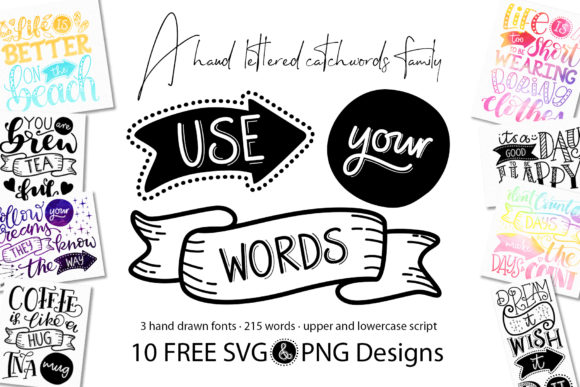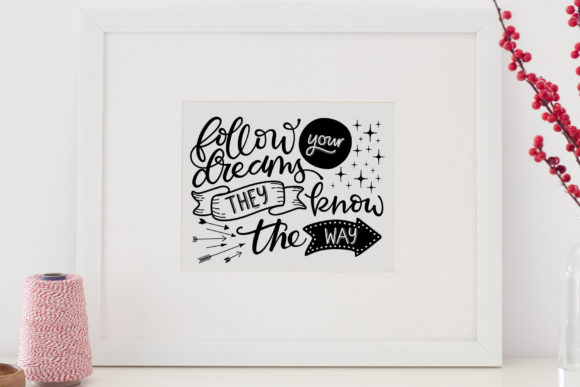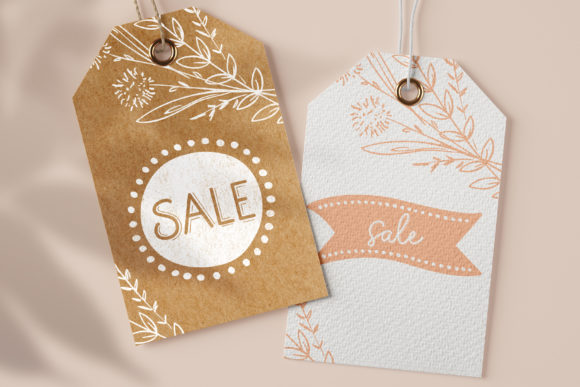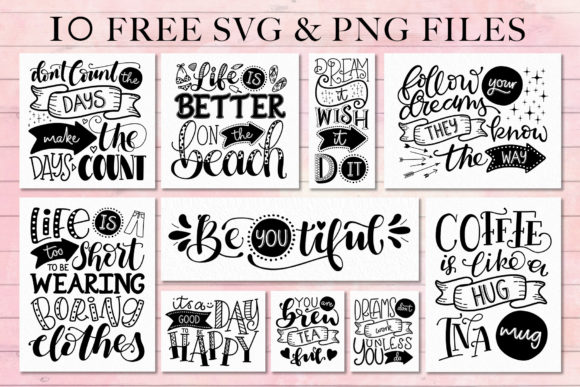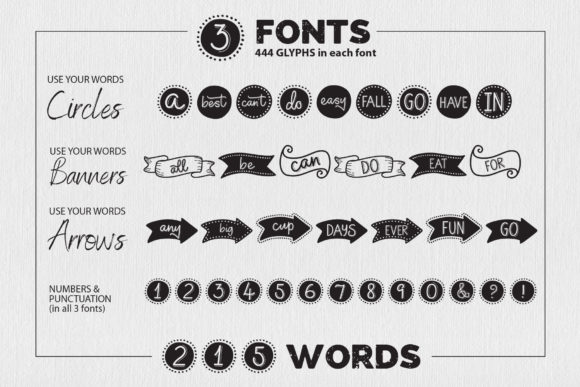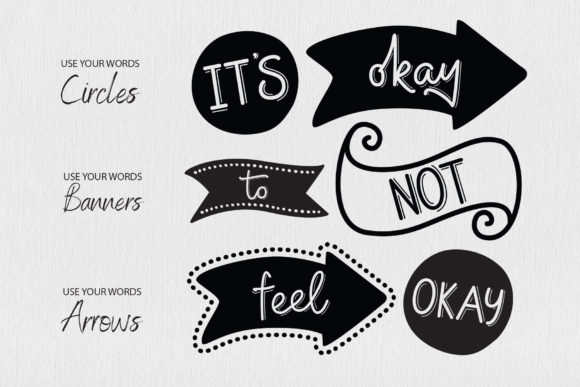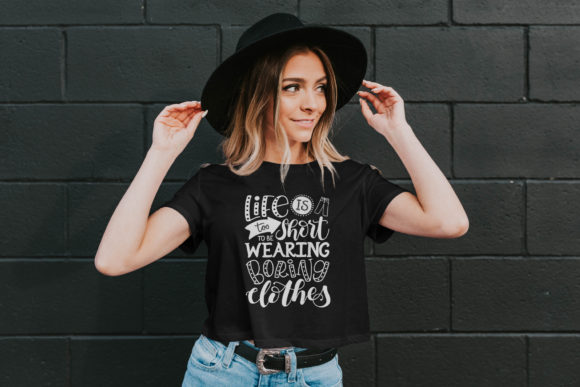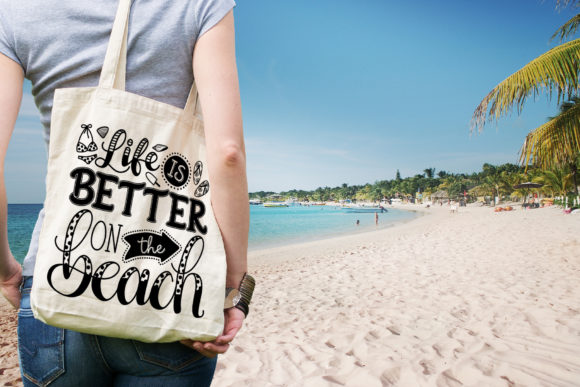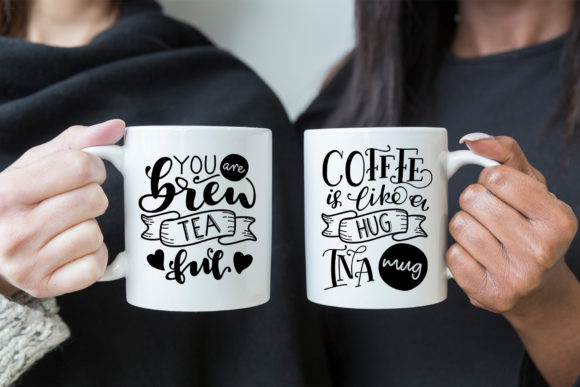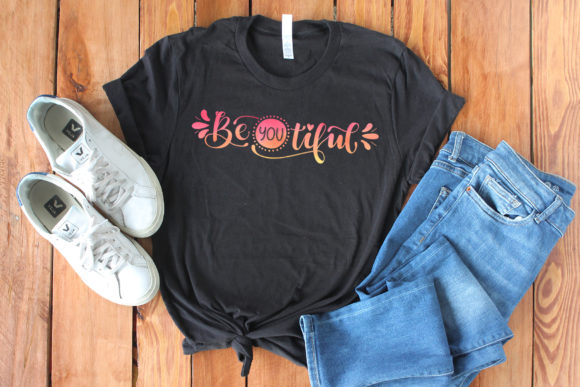
Use Your Words Font Font
About Use Your Words Font
Use Your Words is a fun handwritten font, carefully handcrafted to become a true favorite. It will look outstanding in any context, whether it’s being used on busy backgrounds or as a standalone headline!